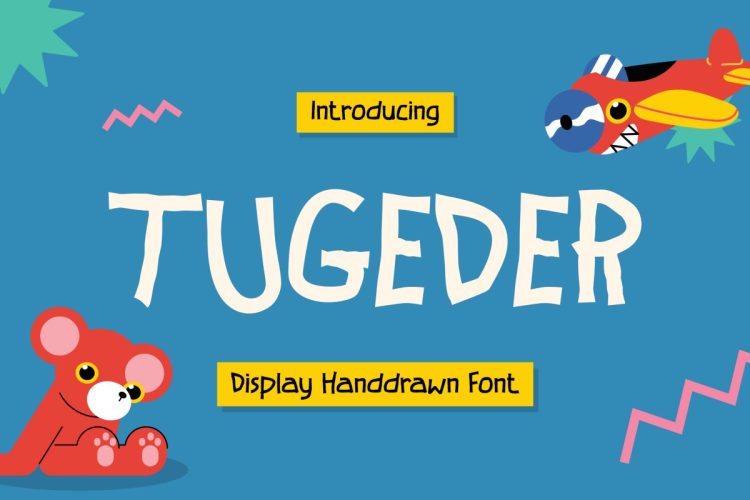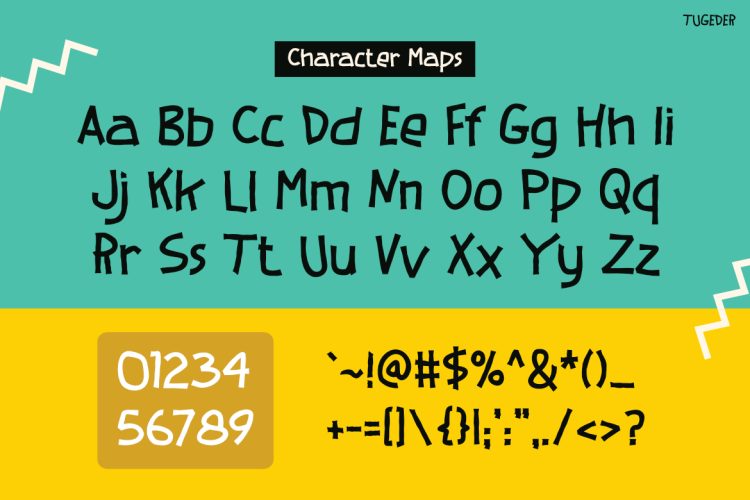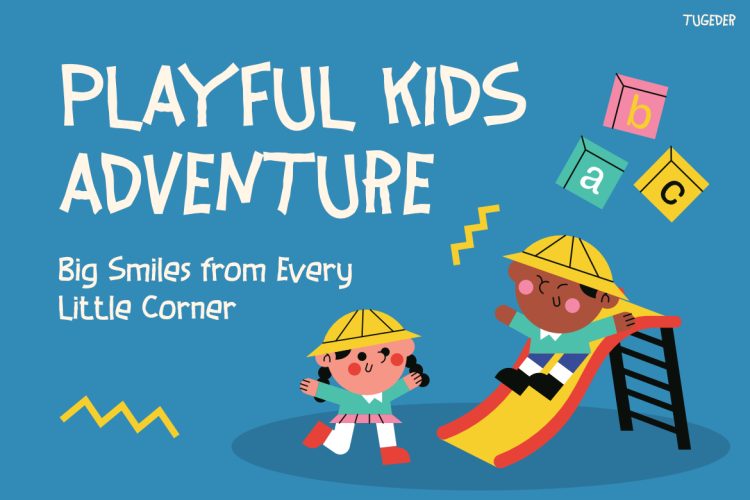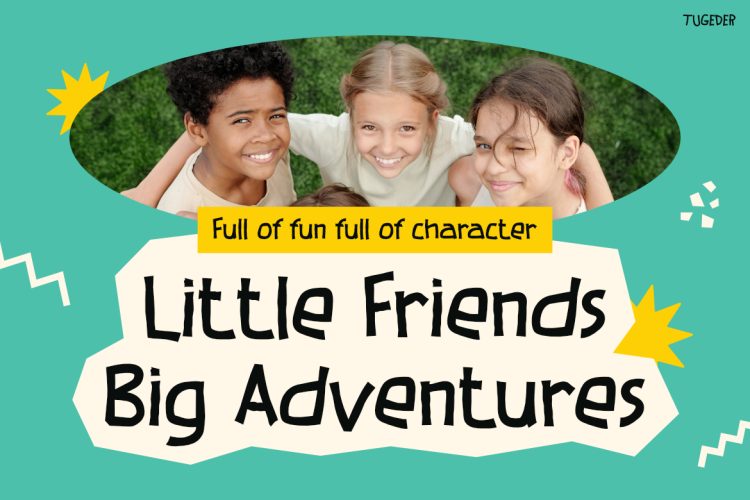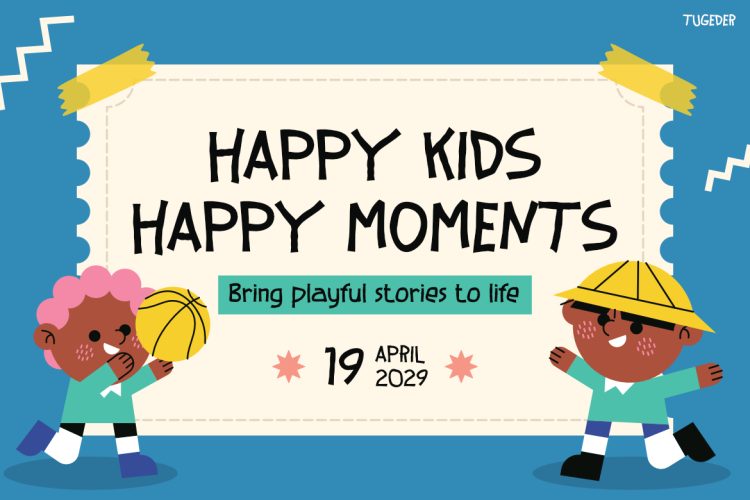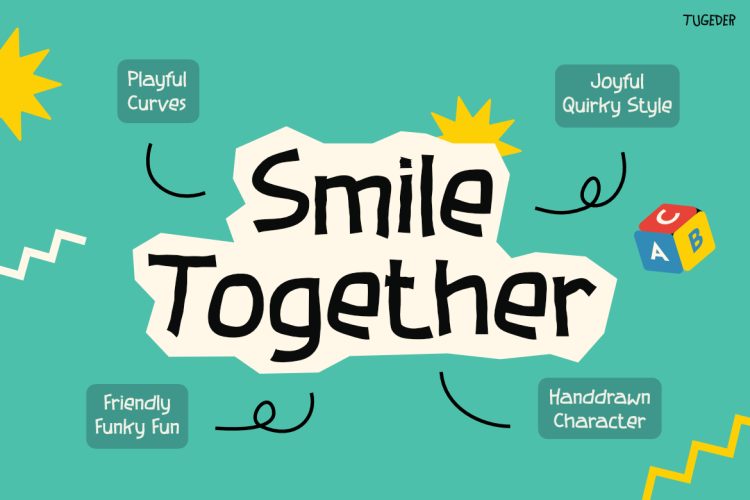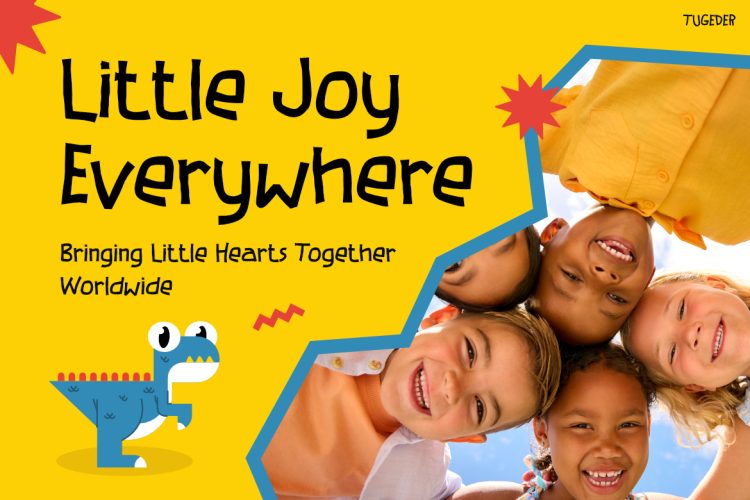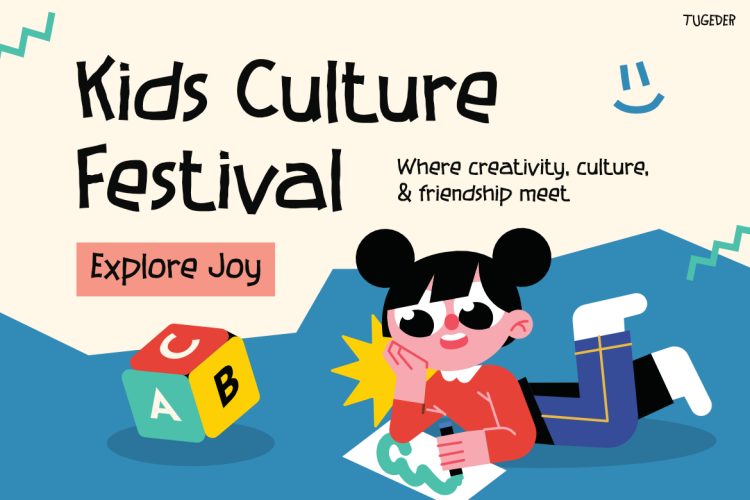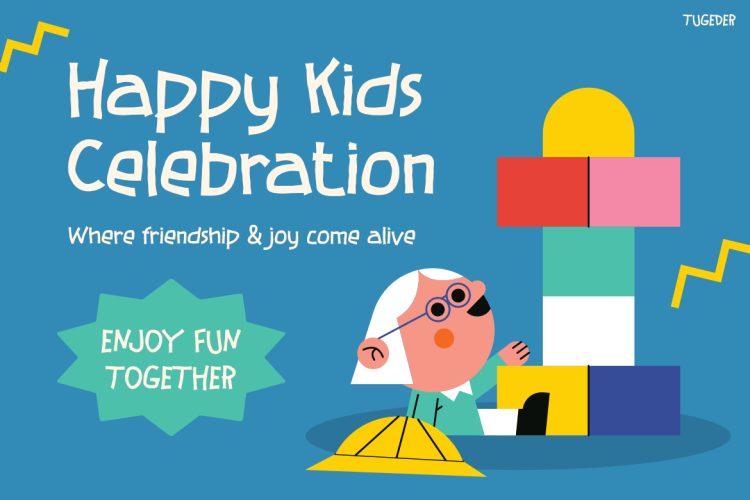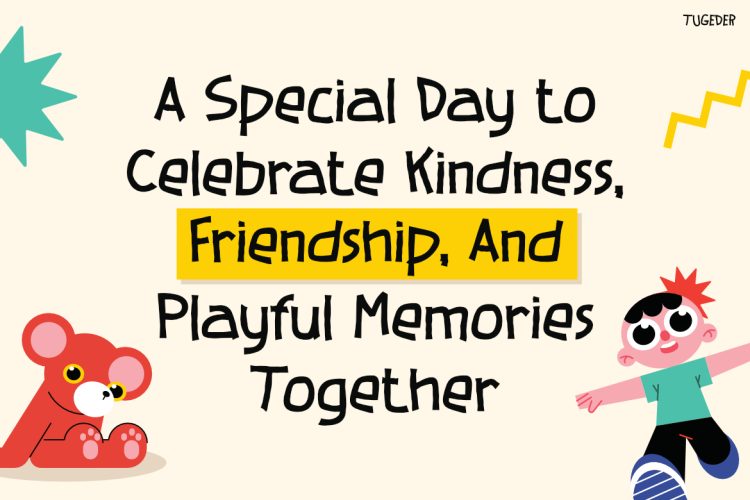
Kids Font Tugeder โ Playful Graffiti Font for Creative Event Vibes
Kids Font Tugeder is a bold and energetic display font that instantly brings fun, creativity, and youthful expression into every design. With its hand-drawn graffiti style, playful strokes, and artistic character shapes, this font creates a trendy street-art atmosphere that feels modern and full of personality. Moreover, the rough handwritten aesthetic makes every headline look more expressive and eye-catching. In addition, the bold letterforms keep your typography highly readable, so your message stays clear across posters, social media, and promotional materials. Because of its vibrant and urban-inspired style, Kids Font Tugeder works perfectly for kids international event promos, art campaigns, creative workshops, and youth-focused branding. Furthermore, the playful structure helps your content feel more dynamic, stylish, and impossible to ignore.
Why Kids Font Tugeder Stands Out
Tugeder combines modern graffiti energy with fun handwritten typography. As a result, every word feels lively, artistic, and full of attitude. Not only does the font create a strong visual impact, but it also enhances the overall creativity of your layouts with its expressive and spontaneous style. Additionally, the unique character shapes make your designs feel more authentic and engaging. Meanwhile, the playful urban vibe helps your projects connect better with younger audiences and creative communities. Whether you are creating event posters, art exhibition graphics, or social media promotions, this font helps every design feel more exciting and visually powerful.
- Kids international event promos
- Art exhibition campaigns
- Workshop posters
- Social media graphics
- Youth branding
- Creative flyers
- Street-art themes
- Festival promotions
- Merchandise and apparel
- Modern educational projects
Make Your Designs Go Loud